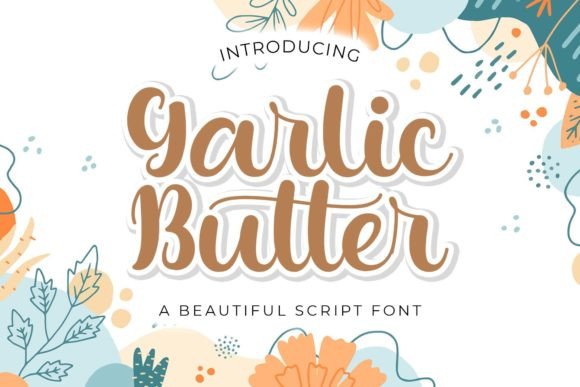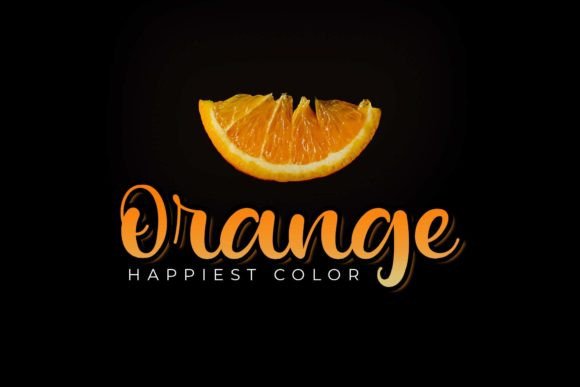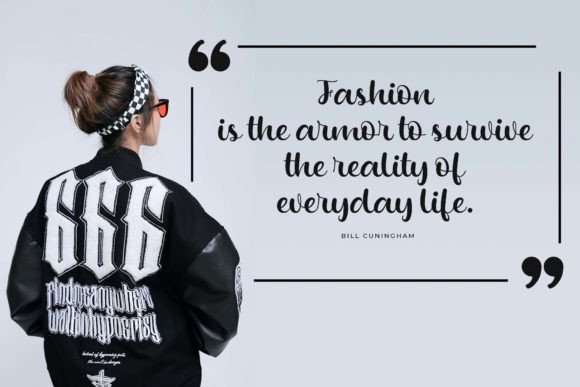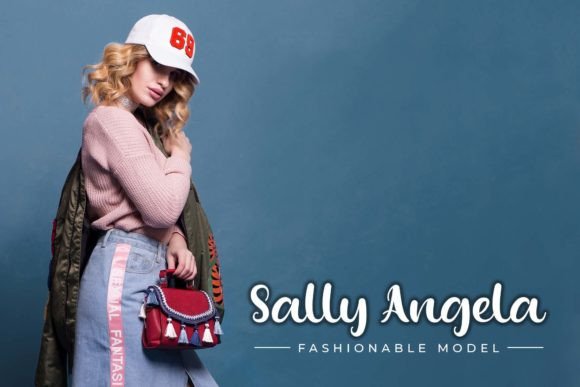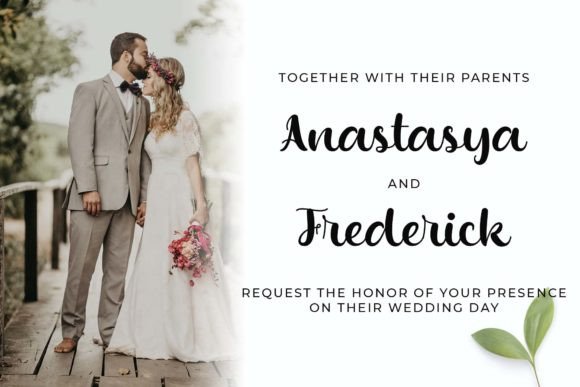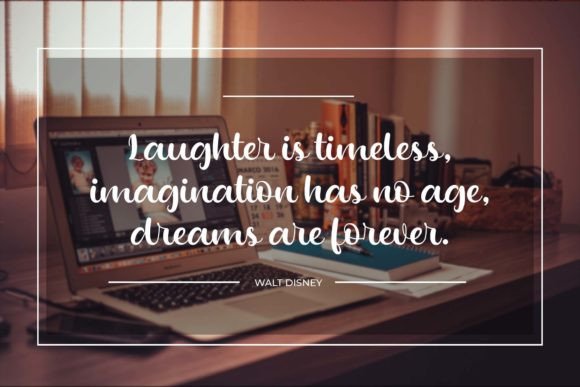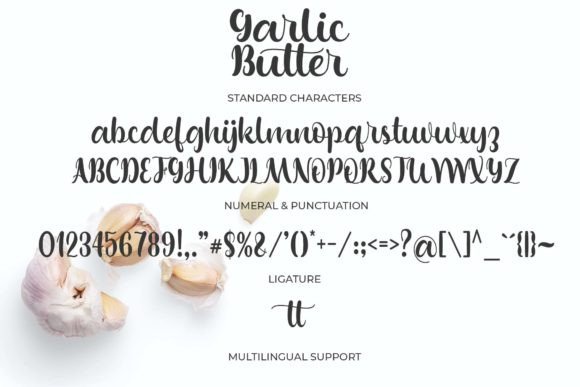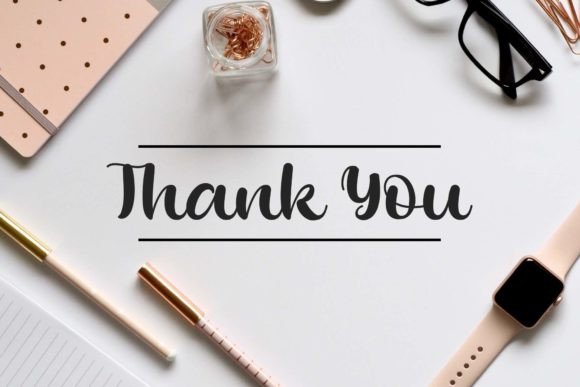
Garlic Butter Font
About Garlic Butter Font
**Garlic Butter: A Sweet and Lovely Handwritten Script Font**
Introducing Garlic Butter, a delightful and sweet handwritten script font that adds a touch of charm and elegance to a variety of design ideas. This gentle font exudes a sense of joy and romance, making it a perfect choice to enhance and beautify your creative projects.
Garlic Butter’s primary charm lies in its sweet and lovely style. The handwritten script characters are meticulously crafted to convey a sense of warmth and authenticity. The font’s gentle and flowing letters exude a playful and romantic touch, making it an ideal choice for projects where you want to evoke emotions and create a delightful atmosphere.
The versatility of Garlic Butter knows no bounds. It complements a wide range of design ideas, from wedding invitations to love letters, branding materials to greeting cards. This font has the power to elevate your projects, adding a joyful and romantic aura that resonates with your audience.
Garlic Butter is designed to make your projects not only visually appealing but also emotionally engaging. Its readability and sweet aesthetics ensure that your message is not just conveyed effectively but also with a touch of heartwarming charm.
In summary, Garlic Butter is more than just a font; it’s a source of sweetness and romance that enhances your design projects. Its lovely and gentle script letters make it the perfect choice for infusing joy and romanticism into your work. With Garlic Butter, your creative projects will shine with a delightful and heartwarming touch. Choose Garlic Butter, and let your designs come alive with its sweet charm.